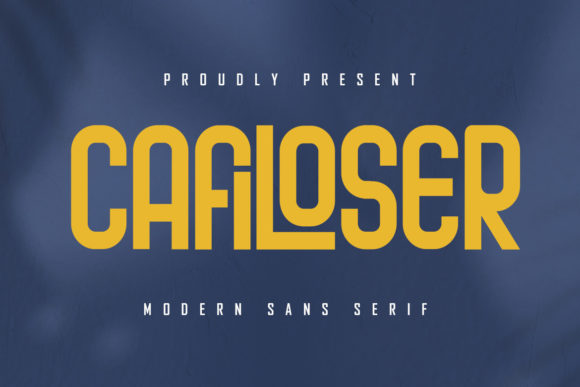
Dive into the world of Cafiloser, a contemporary sans serif font that exudes sophistication and elegance. This font is not just a collection of characters; it's an artistic masterpiece that will transform your designs into captivating visual experiences.
Step into a realm where style meets versatility. Cafiloser's sleek lines and sharp angles embody the essence of modernity, lending a touch of sophistication to everything it graces. From professional websites to captivating marketing materials, Cafiloser is the font that turns your words into works of art.
Unlock a world of design possibilities with Cafiloser. Its meticulously crafted characters dance harmoniously on the screen, creating a visual symphony that captivates and engages. With Cafiloser, your designs will transcend the ordinary and embrace the extraordinary, leaving a lasting impression on your audience.
Let your creativity soar with Cafiloser. This font is your passport to a world of endless design possibilities. Its versatility knows no bounds, effortlessly adapting to a myriad of projects. Unleash your imagination and craft designs that resonate with your audience, leaving them spellbound and yearning for more.
Immerse yourself in the world of Cafiloser and discover the power of typography. This font is more than just a tool; it's an extension of your creative vision. With Cafiloser, you'll create designs that captivate, inspire, and leave an indelible mark on the minds of those who encounter them.